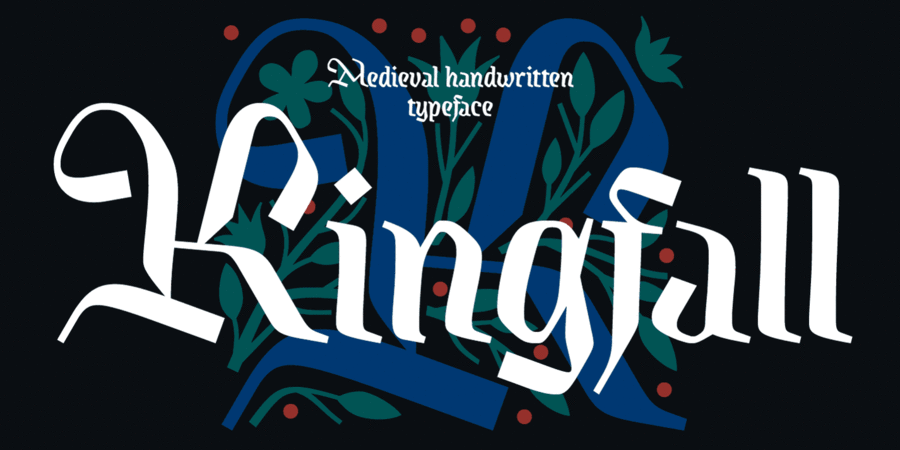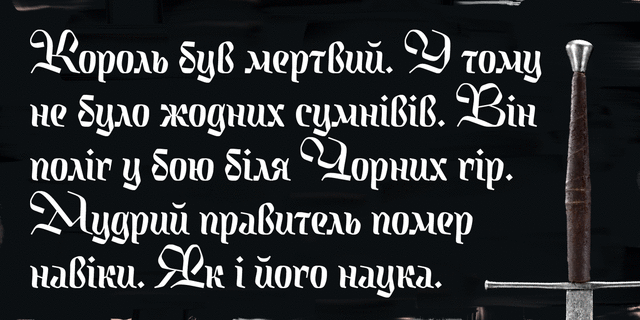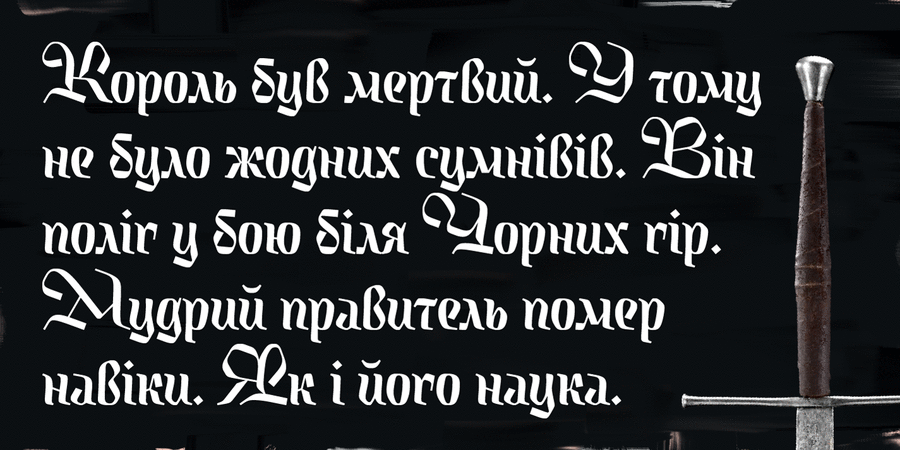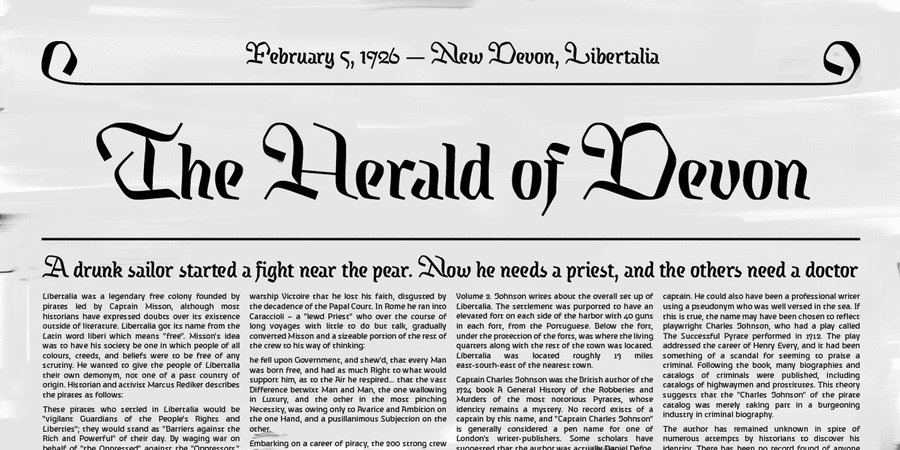
Kingfall is a handwritten medieval typeface sketched with a flat calligraphic nib. Its design is built on the contrast between small condensed lowercase letters and large decorative uppercase letters that can also function as initials. The shape of the letters has numerous rough bends and hard edges, as if the royal blacksmith took a strip of iron and shaped it with a hammer. At the same time, the direction of strokes avoids geometric rectilinearity, thereby adding a human touch to the letterforms. The font family is represented by optical sizes: the high-contrast “Blessed” for headlines and the medium-contrast “Dark” for small text sizes. The typeface was designed by Michael Rafailyk in 2024.
Styles: Aerial, Light, Blessed, Dark, Engraved, Initials. Initials: Kingfall Initials is a font family style that includes decorative uppercase letters – Initials. Optical Size: The typeface is presented in two optical sizes: Aerial, Light, Blessed, Engraved, Initials (high contrast, more elegant, for large-size text) and Kingfall Dark (medium contrast, rough, for small-size text). Stylistic Set 2 “Decorations”: The font contains 20 decorative elements for book chapter layout. They can be applied in two ways: Stylistic Set 1 “Arrows”: Left <- Right ->; Up <| Down |> Left Right <-> Up Down <|> North West <\ North East /> South East \> South West Stylistic Set 3 “Classic Y”: The letter “Y” (including diacritical versions) is replaced with a more familiar letterform. Stylistic Set 4 “Descended epsilon”: The Greek lowercase epsilon is replaced with a more cursive version featuring a longer descending stroke. Stylistic Set 5 “Long tail tse shcha”: The Cyrillic letters “ц” and “щ” gain elongated tails that curve horizontally under the letter. Stylistic Set 6 “Alternate be”: The form of the Cyrillic letter “б” is replaced from the Bulgarian form to the Eastern European variant. Contextual Alternates: fa ra ru ry гa is The typeface was designed by Michael Rafailyk in 2024. The quick brown fox jumps over the lazy dog